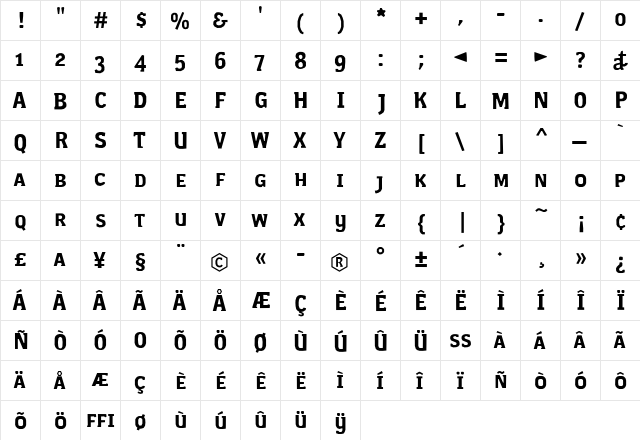
Cornwall Bold Font Preview
Cornwall Bold
Cornwall Bold Font Details
| Foundry | Copr. Jens Gehlhaar GagaFonts |
Design Context for Cornwall Typeface
Cornwall takes a measured approach to typography — its balanced proportions and neutral character make it a reliable workhorse for both digital and print work. Its bold stroke weight gives it real presence on the page.